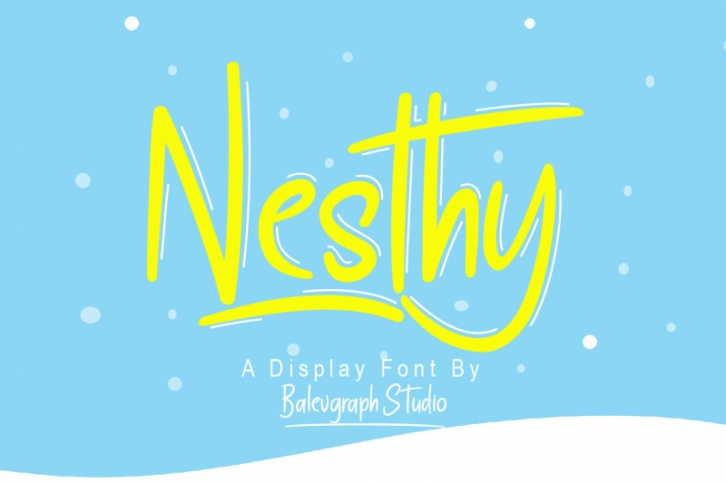
Nesthy is a cute and joyful handwritten font. Add it to your most creative ideas and notice how it makes them come alive!
- Uppercase, Lowercase, Numerals & Punctuations
- Ligature & Alternate